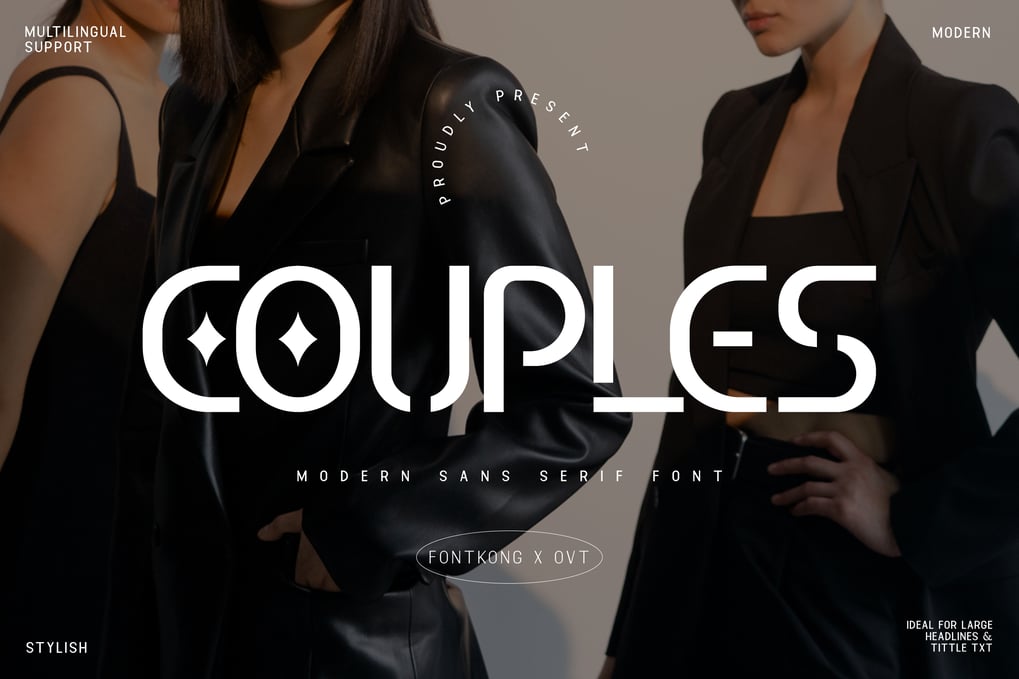
Couples – Modern Sans Serif Font
Couples is characterized by its neat, uncluttered lines and open forms, making it especially suited for web design, user interfaces, and modern branding where simplicity is key. The font’s versatile nature covers a variety of weights and styles, including bold and italic variations, ensuring flexibility across different mediums and applications.